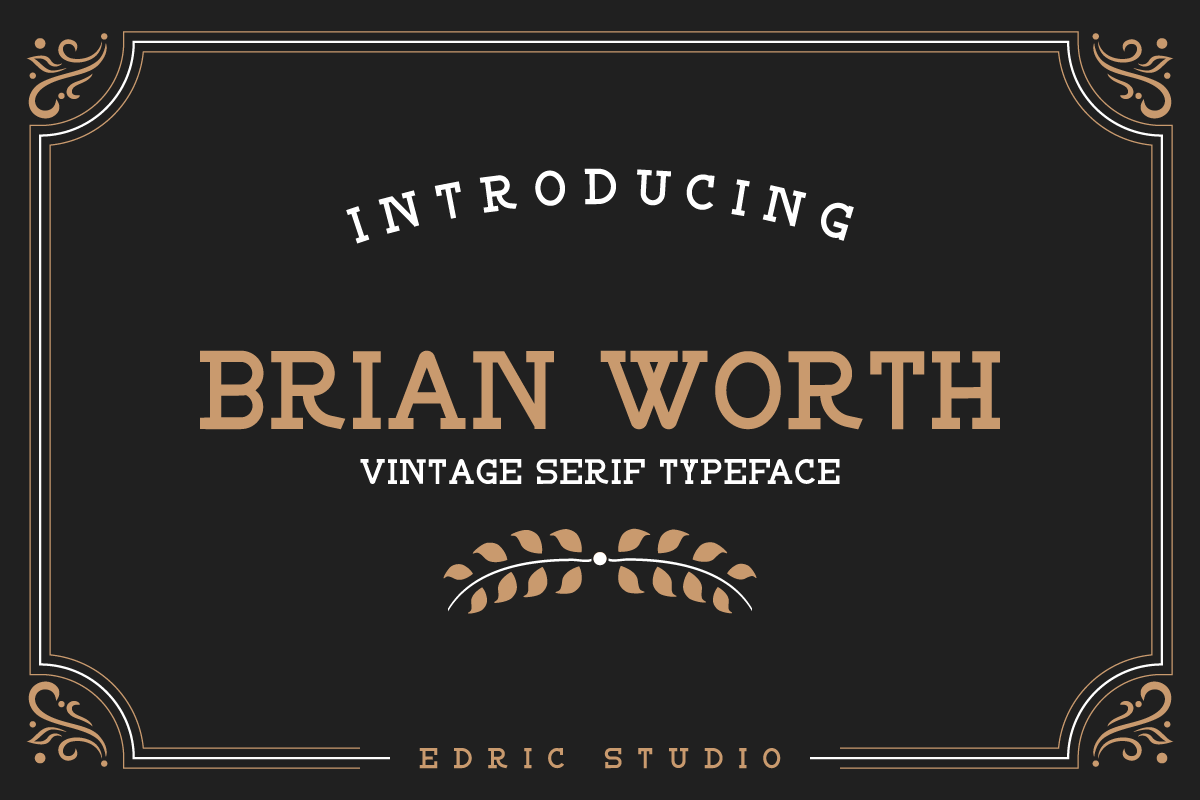
BRIAN WORTH
BRIAN WORTH – Vintage Font A display sans serif font. Great for many things : cafe signage, food menu flyer, poster, label, sticker, even branding for a retro corporate logo brands.It has 2 styles: Regular and outline.This font will Work on PC & Mac with Simple installations. Accessible in the Adobe Illustrator, Adobe Photoshop, Adobe InDesign, even work on Microsoft Word. It’s also PUA Encoded Characters – Fully accessible without additional design software.